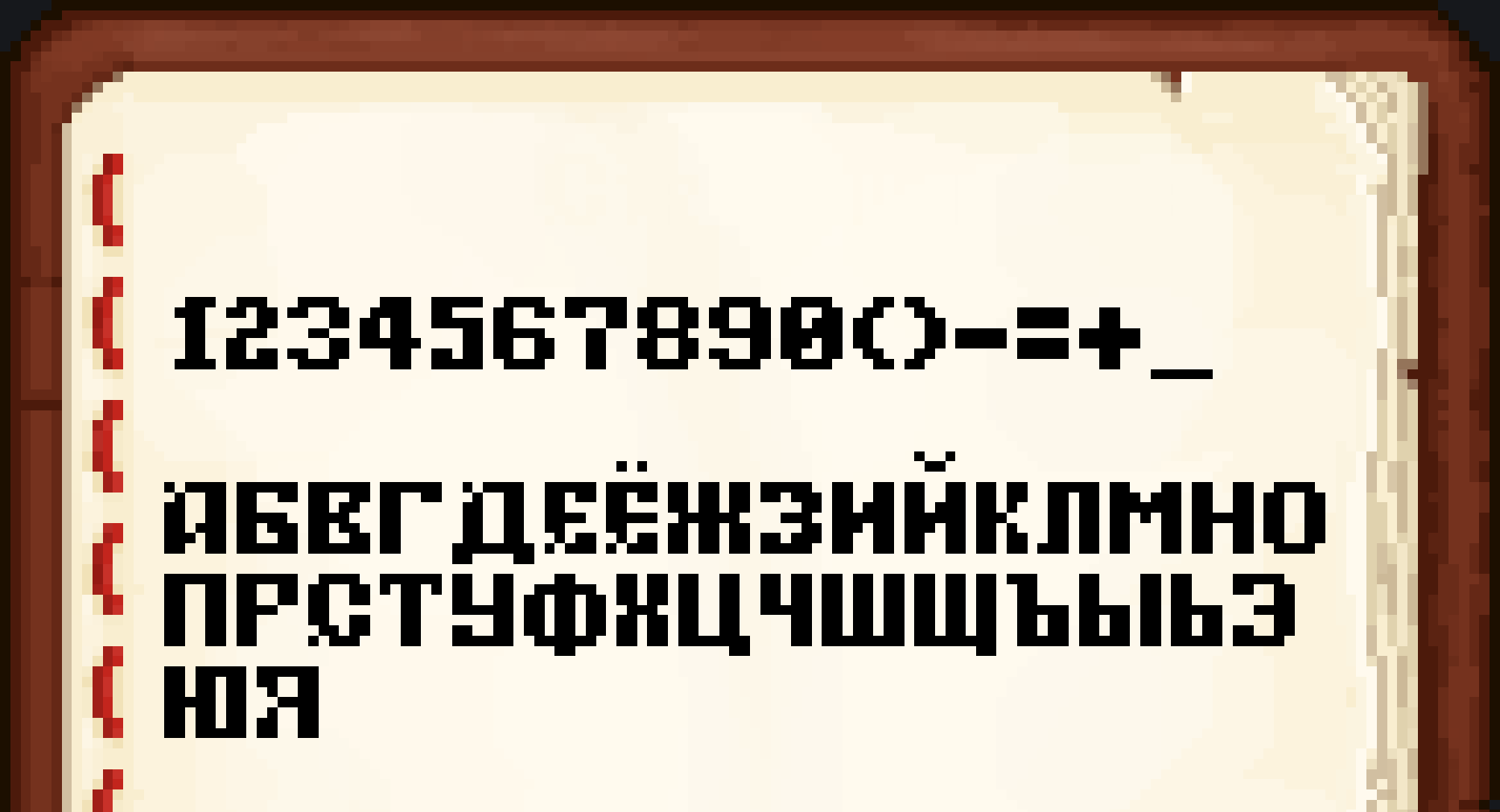
Slavic Fantasy Font
Font that can be applied to fantasy modpack
This resourcepack modifies font to look it like minecraft-styled slavic font, it can be a great addition to medieval or fantasy themed modpack.
Currently it changes only numbers, some special symbols and English and Russian laguages.
You can check yourself is needable symbols are already remade! In the future im planning to modify all symbols.